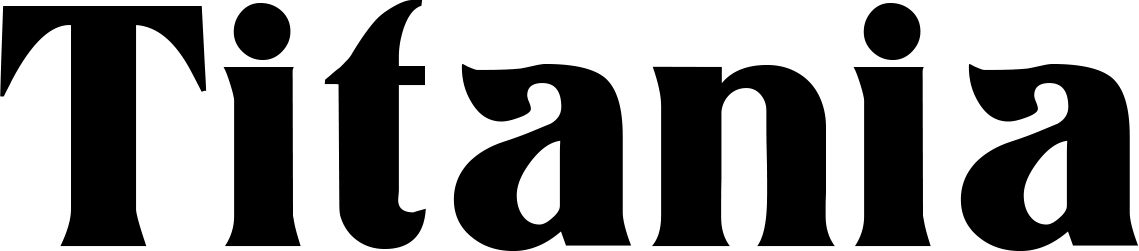
Titania Font
Add a classical, vintage, and reliable feel, with this retro font that is available in 3 different weights. Titania includes bold letterforms, mixed case alphabet letters, numbers, and punctuations that assemble the best…
Add a classical, vintage, and reliable feel, with this retro font that is available in 3 different weights. Titania includes bold letterforms, mixed case alphabet letters, numbers, and punctuations that assemble the best choice, especially by having wonderful edges that also deliver a professional look for your typography.
You might consider Titania in different places a few of which are websites, branding, magazines, cards, fashions, and wherever you wish! This barber font is a brilliant choice that won’t let you down!